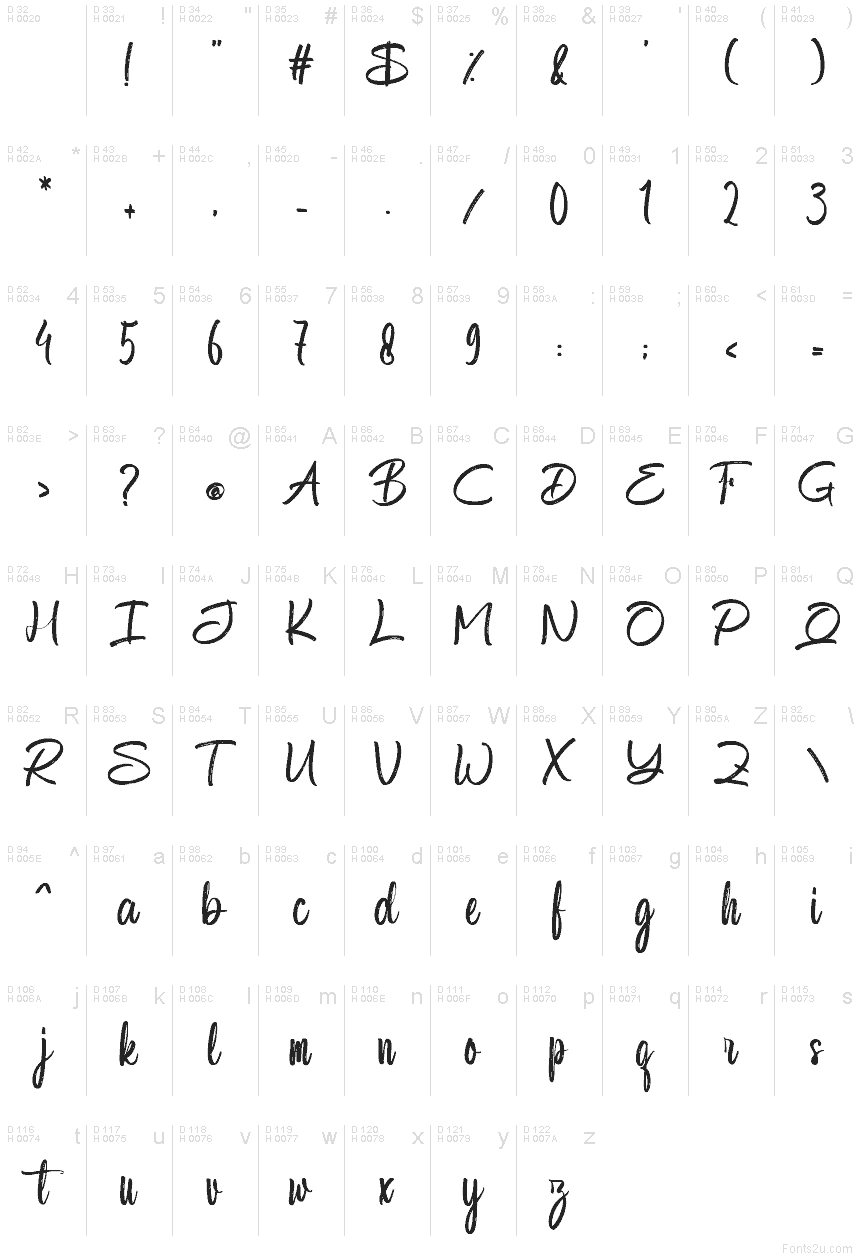
Semate Regular
Semate font by Afkari Studio is a free brush font that boasts an elegant, flowing style with a brush-like texture. It presents an expressive, artistic flair and offers a touch of modern appeal suitable for every new project. Its inspiration draws from classic intricate calligraphy to bring your conceptual ideas to the real world.
Use Semate in projects related to branding, stationery design, background images, packaging titles and headings, magazine designs, book cover designs or headings. More areas of application include public presentations (both textual and visual), movie title design or poster content for both entertainment as well as educating themes.